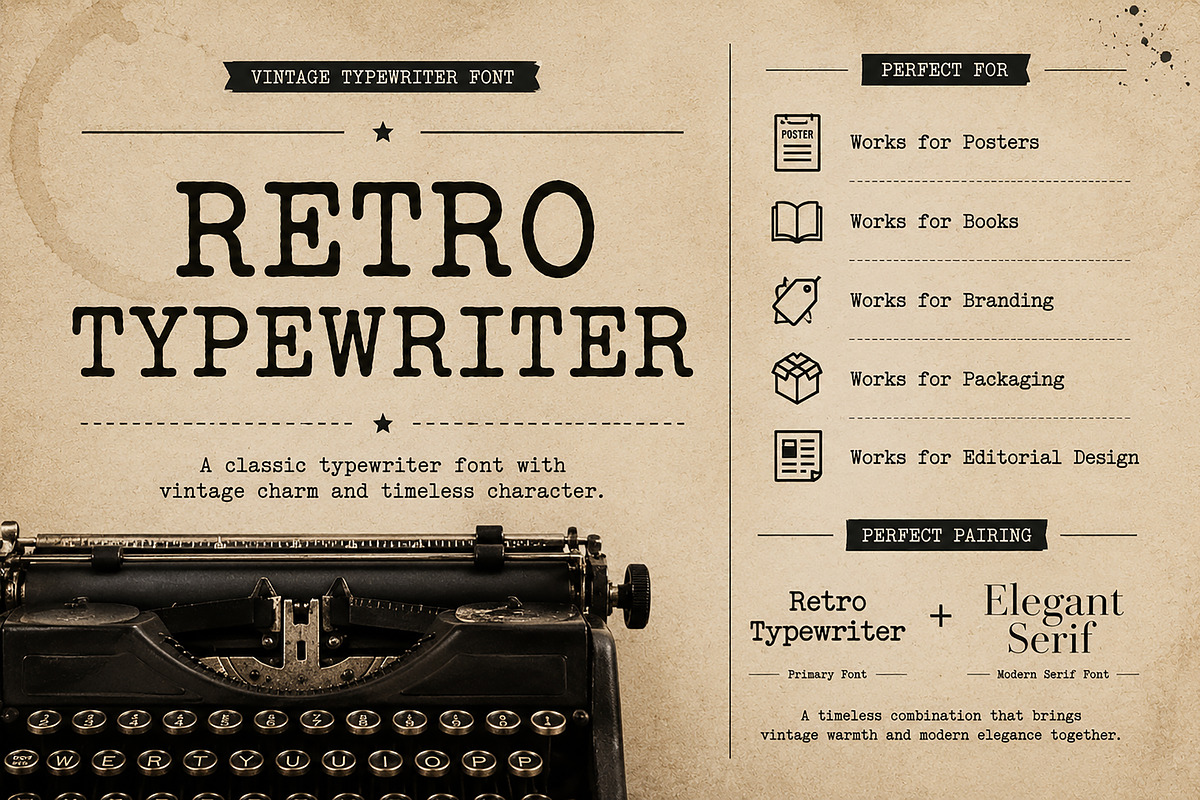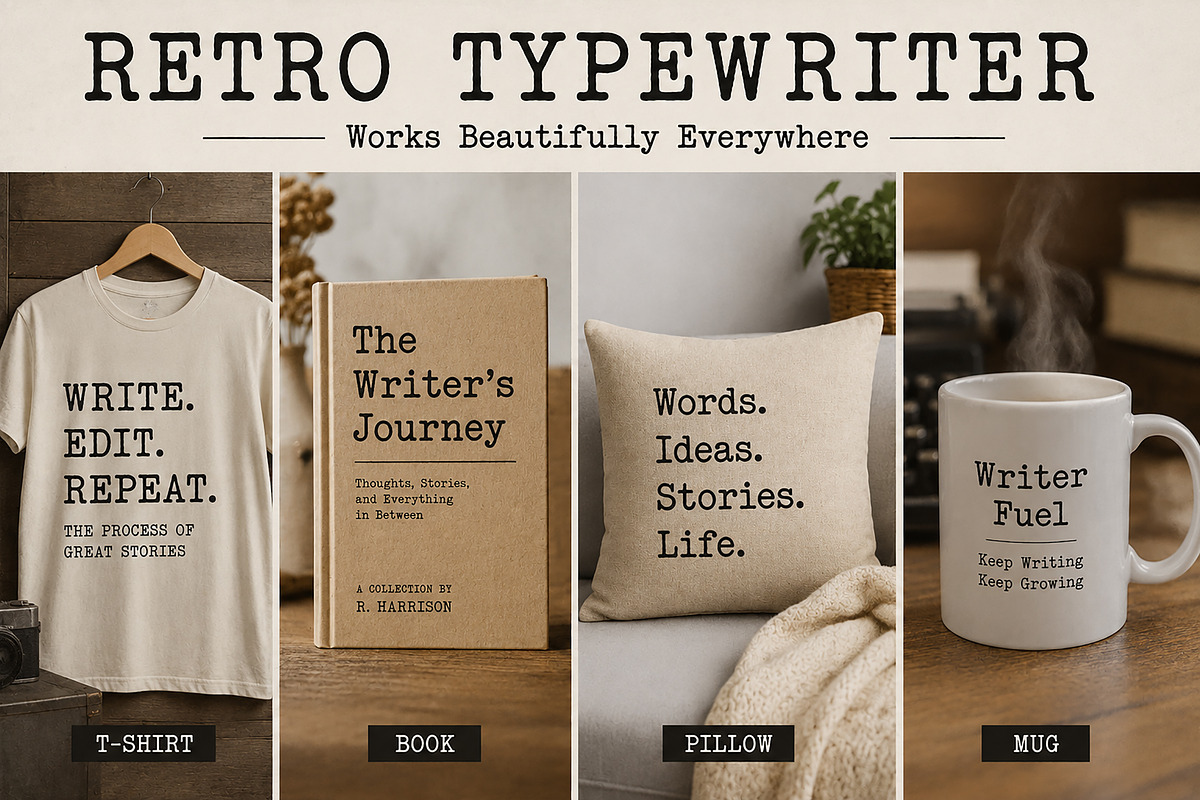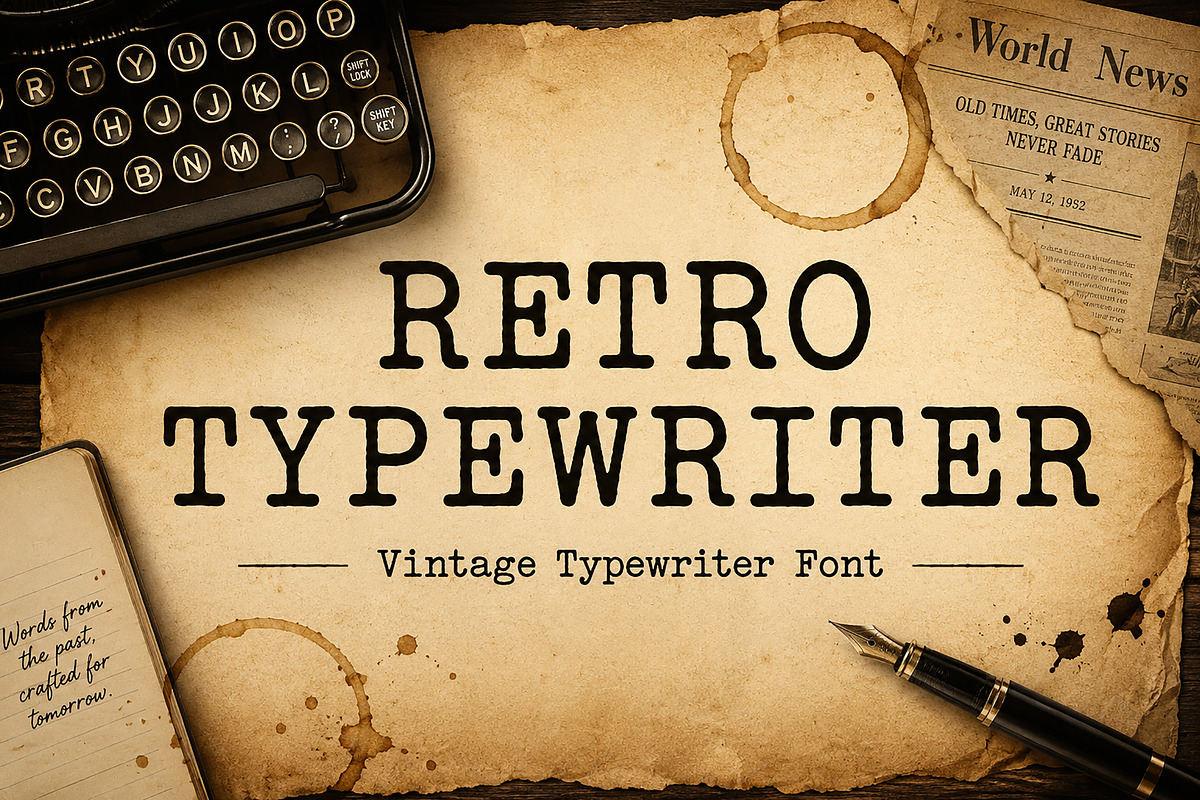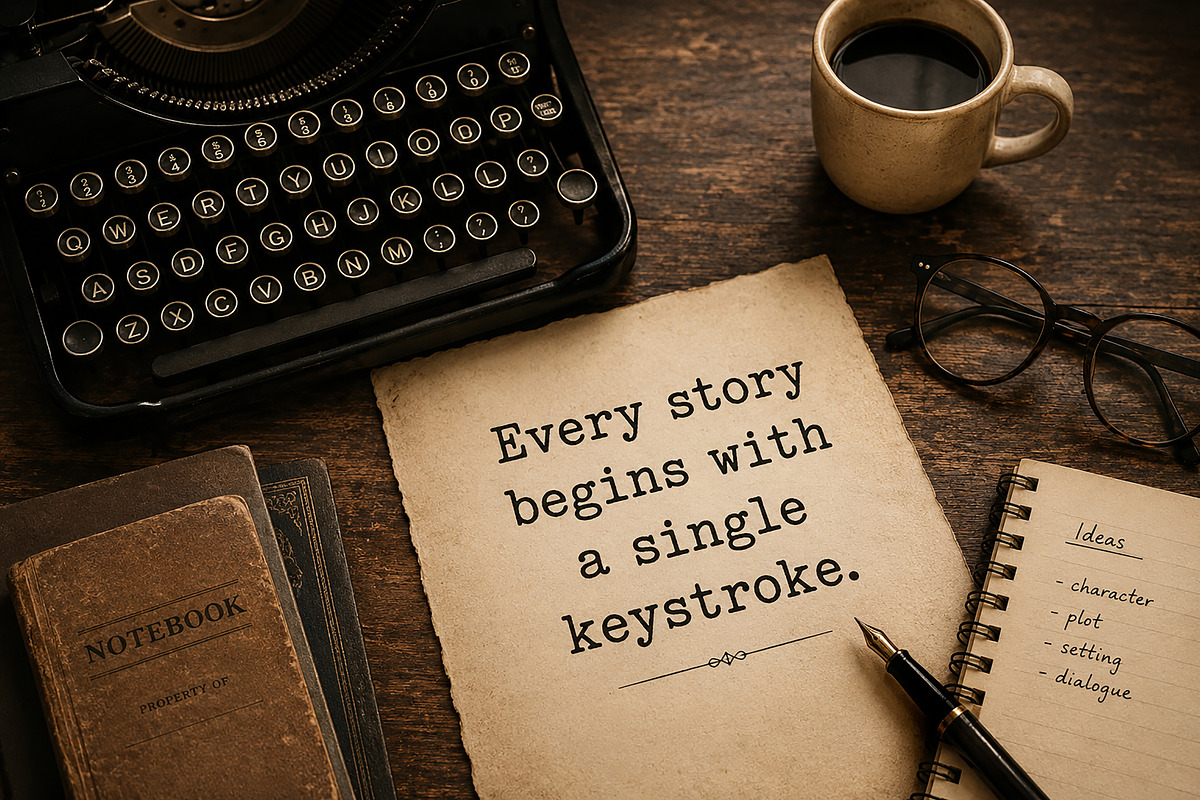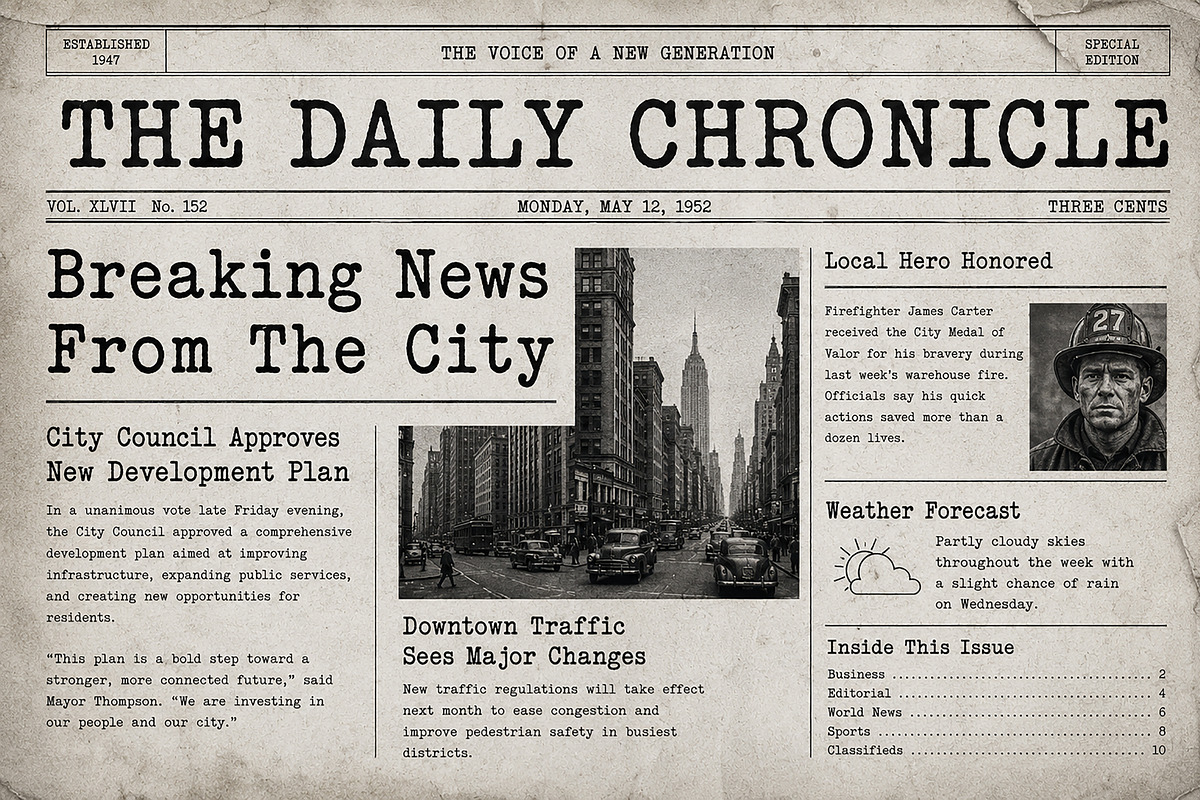
Retro Typewriter
Retro Typewriter – Vintage Typewriter Font
Bring the timeless charm of old-school typing machines into your designs with Retro Typewriter, a vintage-inspired serif typeface crafted to capture the authentic feel of classic typewritten documents.
Featuring clean yet slightly imperfect letterforms, Retro Typewriter delivers a nostalgic editorial look that works beautifully for vintage branding, book covers, posters, packaging, journals, newspapers, quotes, and creative projects that need a touch of retro character.
Whether you're designing a historical newspaper layout, a writer-themed brand, a detective novel cover, or a rustic packaging concept, this font adds warmth, authenticity, and personality to every composition.
✔ Vintage Posters
✔ Editorial Design
✔ Newspaper Layouts
✔ Book Covers
✔ Journals & Diaries
✔ Branding Projects
✔ Packaging Design
✔ Quotes & Typography Art
✔ Writer-Themed Merchandise
✔ T-Shirts, Mugs & Pillows
✔ Social Media Graphics
✔ Retro Marketing Materials
Why You'll Love It
Retro Typewriter combines the authentic spirit of classic typewriters with modern usability, making it an excellent choice for designers, publishers, content creators, and branding professionals looking for a genuine vintage aesthetic.
Add a touch of history to your next creative project with Retro Typewriter.
Retro Typewriter is a vintage-inspired serif font that recreates the authentic look of classic typewritten text. Perfect for posters, books, newspapers, branding, packaging, editorial design, merchandise, and nostalgic creative projects.